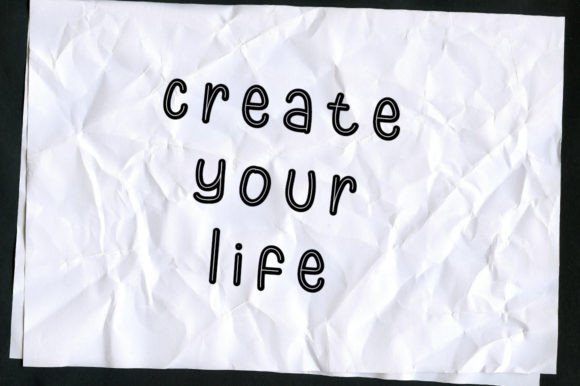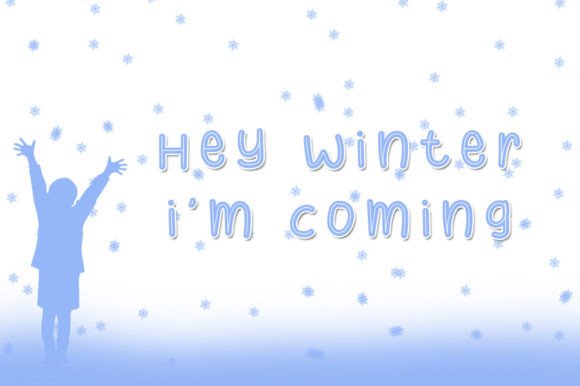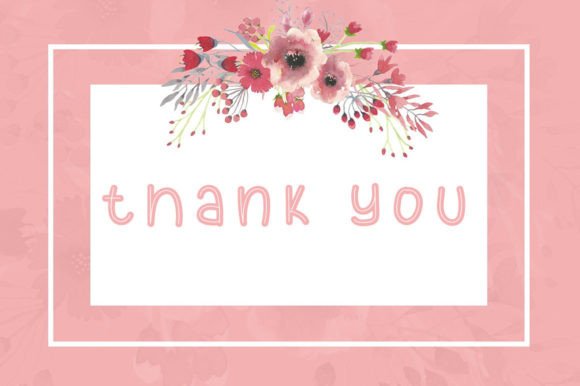
The Joy of Design: Elevating Your Projects with Experience Font
Have you ever been stuck in a design rut, searching for the perfect font to bring your vision to life? It’s a feeling we’ve all been there, scrolling through endless options, hoping to stumble upon that one special font that makes our design pop.
Enter Experience Font, a beautiful and sweet display font designed to add a touch of elegance and joy to your designs. This fresh and clean font is perfect for both formal and informal projects, making it a valuable addition to any designer’s toolkit. By incorporating Experience Font into your designs, you’ll not only simplify the design process but also create a visually stunning outcome that will leave a lasting impression.
Whether you’re a seasoned designer or just starting out, Experience Font is sure to become your go-to choice for adding a touch of personality to your work.
Experience Font Key Features
- Font Family: Experience Font is a unique sans-serif font designed for digital use, offering a clean and modern aesthetic.
- Character Set: The font includes a comprehensive character set, covering Latin, Cyrillic, and Greek alphabets, as well as a range of punctuation and special characters.
- Font Size: Experience Font is available in 6 weights, ranging from Light to Black, each with its own unique characteristics and uses.
- Resolution: Designed for high-resolution displays, Experience Font is optimized for use at resolutions of 72 dpi to 300 dpi, ensuring crisp and clear text at various screen sizes.
- Unique Characteristics: The font features a distinctive x-height, with carefully crafted letterforms that provide excellent readability and a sense of balance and harmony.
Experience Font Review
I recently had the chance to work with the Experience Font, and I must say it’s a mixed bag. Let’s dive in and see what works well and what doesn’t.
- Unique aesthetic**: Experience Font has a distinct, modern feel that can add a touch of sophistication to any design. I love the subtle flair at the ends of the strokes.
- Good legibility**: Despite its unique style, Experience Font is still easy to read, making it suitable for body text and headings.
- Wide character set**: Experience Font includes a wide range of characters, including international symbols and languages, which is a big plus for designers working on global projects.
- Not ideal for small sizes**: Experience Font can look a bit rough at very small sizes, which might be a problem for designers who need to use it in tight spaces.
- Limited stylistic variations**: While Experience Font is stylish, it’s not particularly versatile, which might limit its use in certain design contexts.
Overall, I think Experience Font is a solid choice for designers looking for a modern, unique font. While it has some limitations, its strengths make it a worthwhile addition to any design toolkit.
Tips: Use Experience Font to create a bold and eye-catching headline, or to add a touch of sophistication to your text.
Tips: Use Experience Font to create a custom logo or to add a unique touch to your design.
Tips: Use Experience Font to create a bold and eye-catching title, or to add a touch of sophistication to your text.
Experience Font is perfect for:
- Creating bold and eye-catching headlines.
- Adding a touch of sophistication to your text.
- Creating custom logos or branding materials.
Yes, Experience Font is optimized for digital use, with carefully crafted hinting and kerning to ensure crisp and clear text rendering on various screens and devices.
Experience Font supports a wide range of languages, including Latin, Cyrillic, Greek, and many others, making it suitable for multilingual designs and applications.